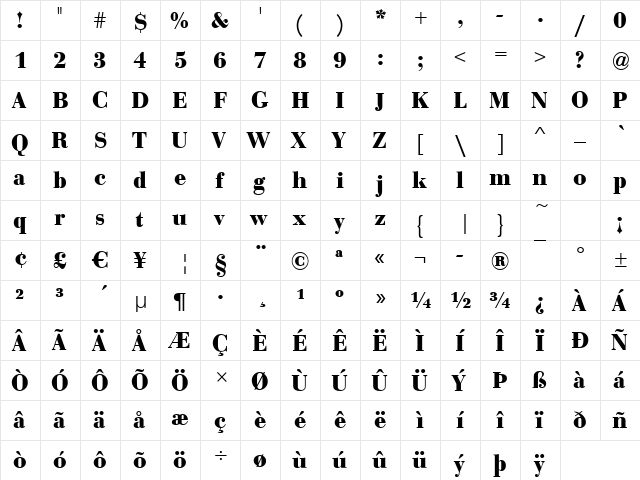
Bodoni-CE-Bold Regular
Design Context for Bodoni-CE-Bold Typeface
Bodoni-CE-Bold takes a measured approach to typography — its balanced proportions and neutral character make it a reliable workhorse for both digital and print work. The heavy weight commands attention and anchors typographic hierarchies.